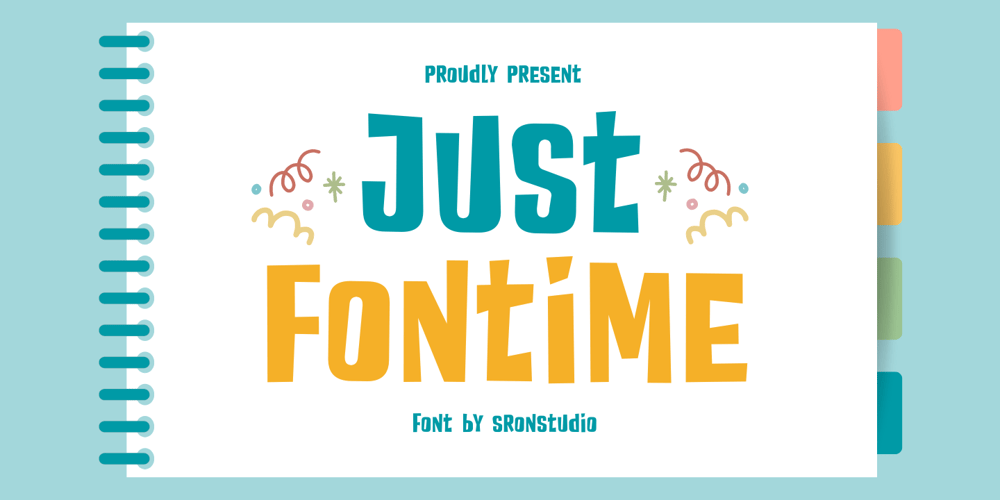
Just Fontime
Just Fontime font
Just Fontime Font Family was designed by Muhamad Yusron Billah and published by Sronstudio. Just Fontime contains 1 styles and family package options. Just Fontime is a bold and playful font that brings fun and energy to your designs. With its chunky, rounded letters and lively character, this font is perfect for projects that need a cheerful and creative touch. Ideal for posters, kids’ designs, product packaging, and playful branding, Just Fontime makes every word pop with personality and charm. Add a dash of fun to your work with this bold, delightful typeface!Included:- Upper & Lowercase- Numeral & Punctuation- PUA Encoded- Multilingual support- Simple Installation- Work both on Mac and WindowsThank you very much 🙂